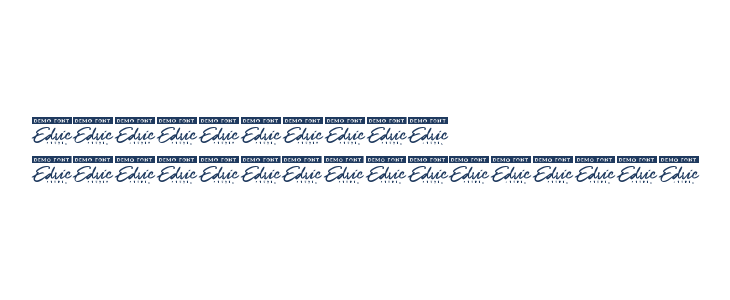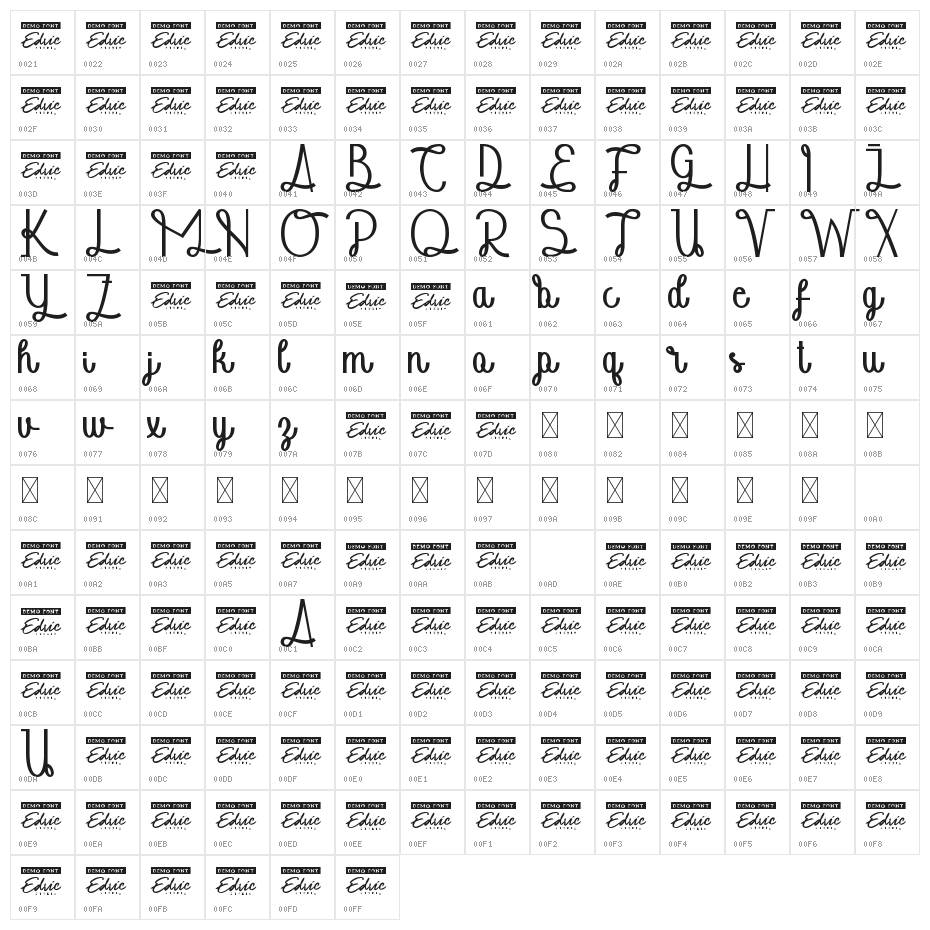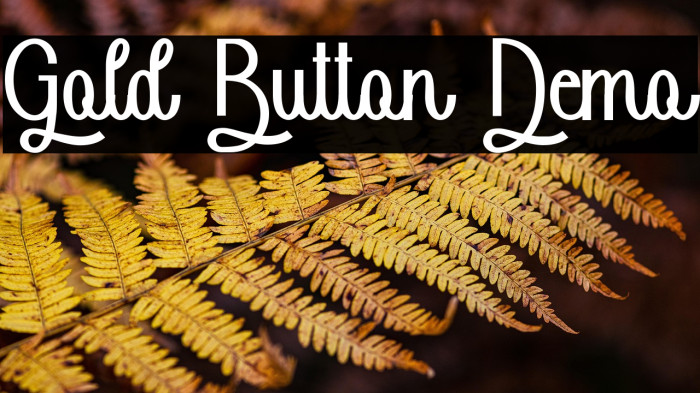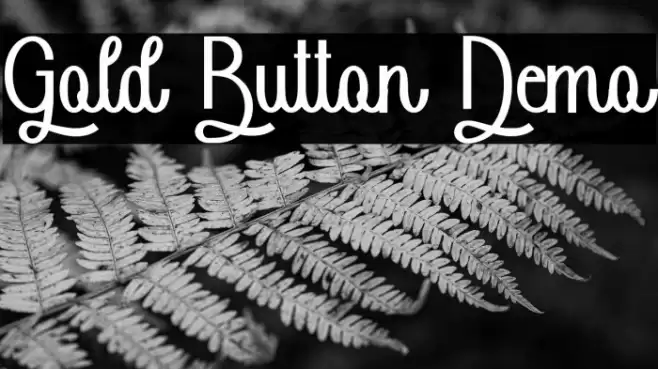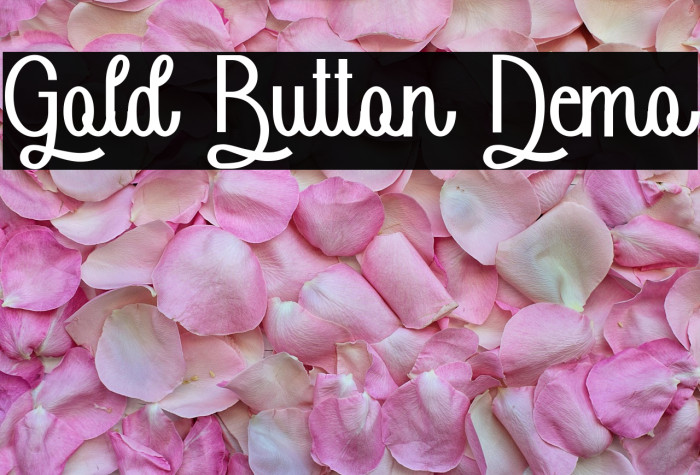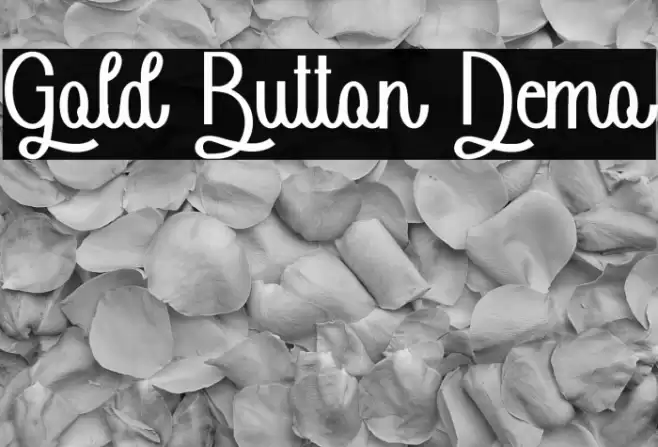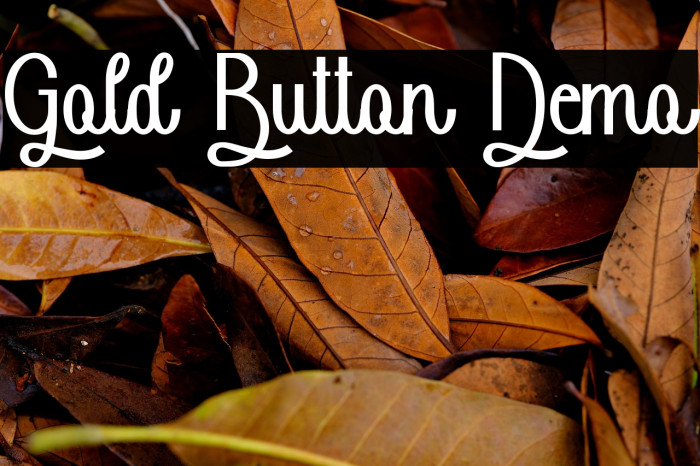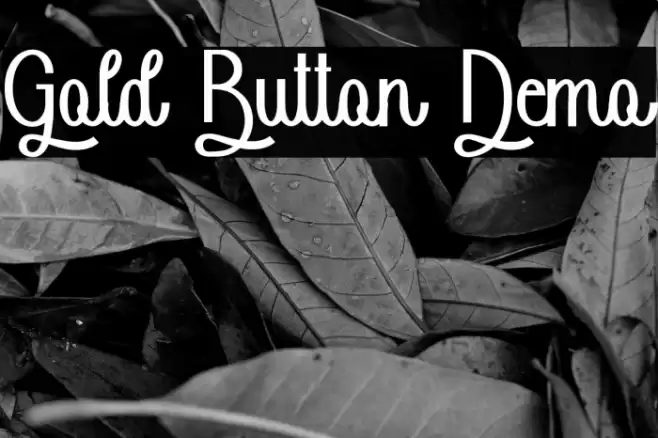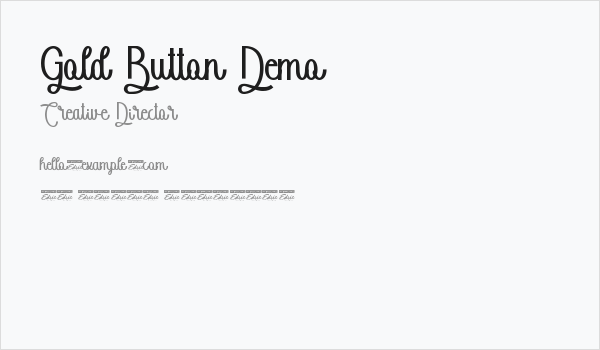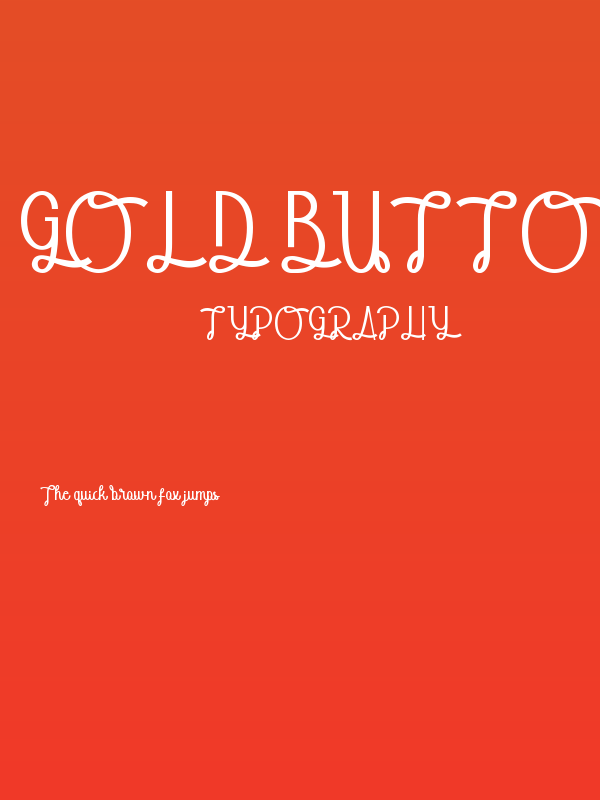
Gold Button Demo Font
Gold Button Demo Description
This font features a playful and elegant script style with a flowing, cursive design. The uppercase letters are characterized by their looping, interconnected strokes, giving a sense of continuity and fluidity. The lowercase letters maintain a consistent style, with rounded forms and smooth curves that enhance readability. The font's bold weight adds a strong visual presence, making it suitable for attention-grabbing designs. Its decorative elements and unique character shapes make it ideal for creative projects that require a touch of sophistication and charm.
| Proposed Projects | Ideal for wedding invitations, branding, logo design, and decorative headlines. |